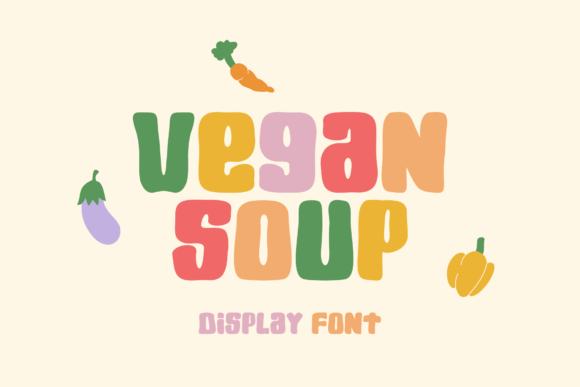
Feast your eyes on Vegan Soup Font, the delightful and enchanting display font that will bring a smile to your face and add a touch of whimsy to your designs. As you dive into the world of Vegan Soup, you'll discover a captivating collection of thick, playful letters that dance across the page like a lively calligraphy performance. Each character is a unique work of art, meticulously crafted to evoke a sense of joy and wonder.
With Vegan Soup Font, your designs will blossom into vibrant masterpieces, bursting with personality and charm. Imagine creating eye-catching mug designs that tell whimsical stories, greeting cards that radiate warmth and cheer, and posters that transport your audience to a world of imagination. The possibilities are endless, and the only limit is your creativity.
But Vegan Soup Font is more than just a collection of letters; it's an experience. As you immerse yourself in its playful curves and quirky shapes, you'll feel a spark of inspiration ignite within you. Your designs will come to life with a newfound energy and vibrancy, captivating your audience and leaving a lasting impression.
So, if you seek a font that will transform your designs into captivating works of art, look no further than Vegan Soup Font. Let its playful spirit infuse your creations, and watch as your audience is captivated by its charm. Vegan Soup Font is the perfect choice for those who dare to be different and embrace the extraordinary.